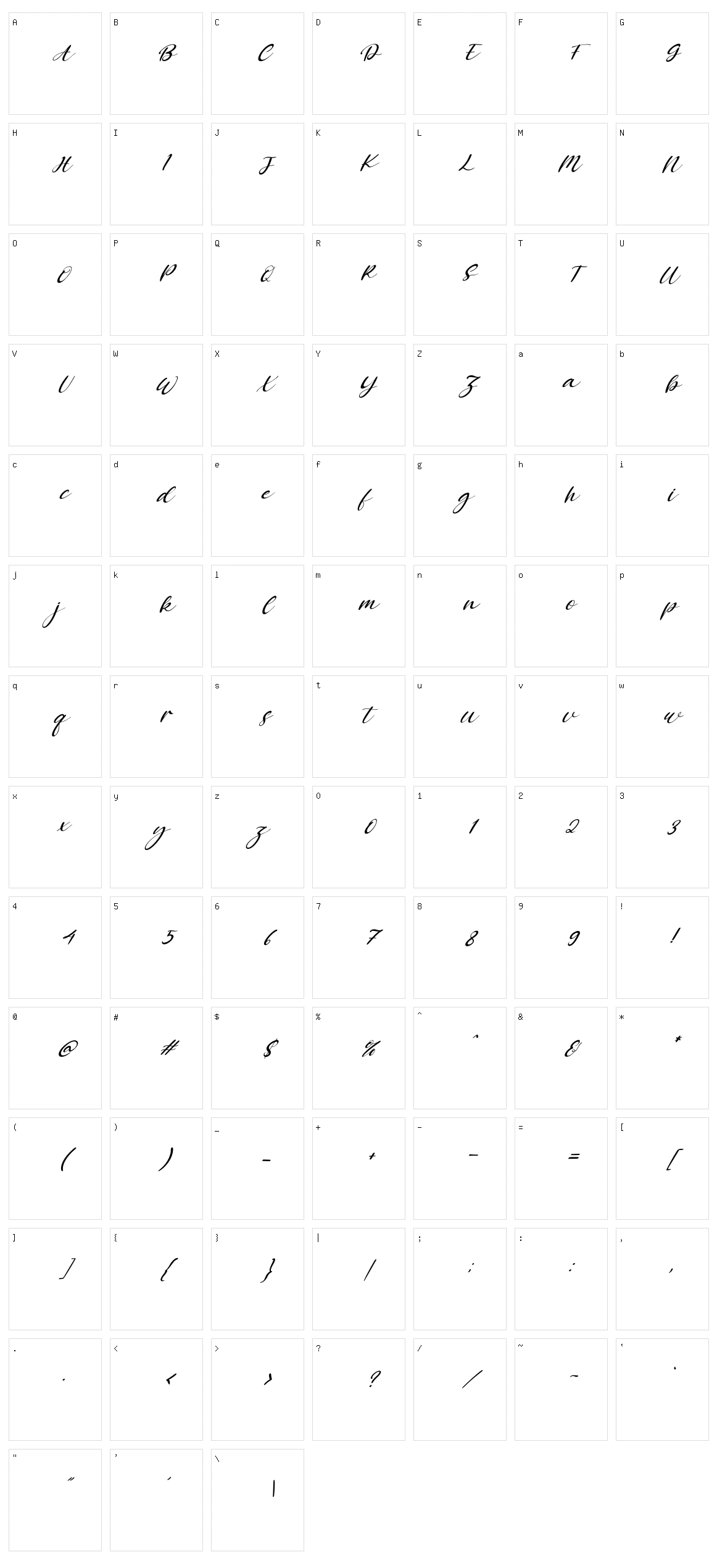
The free font Mozzana is carefully designed by Kong Font, showcasing a thoughtful balance of creativity and usability and falls under the Script font style. When you download the ZIP file, it contains only 151.42 KB of font files, making it lightweight and quick to download. Please review the license details below to understand permitted usage and distribution rights. If license information is not available, we recommend using this font for personal projects only or contacting the author directly for commercial usage permissions.